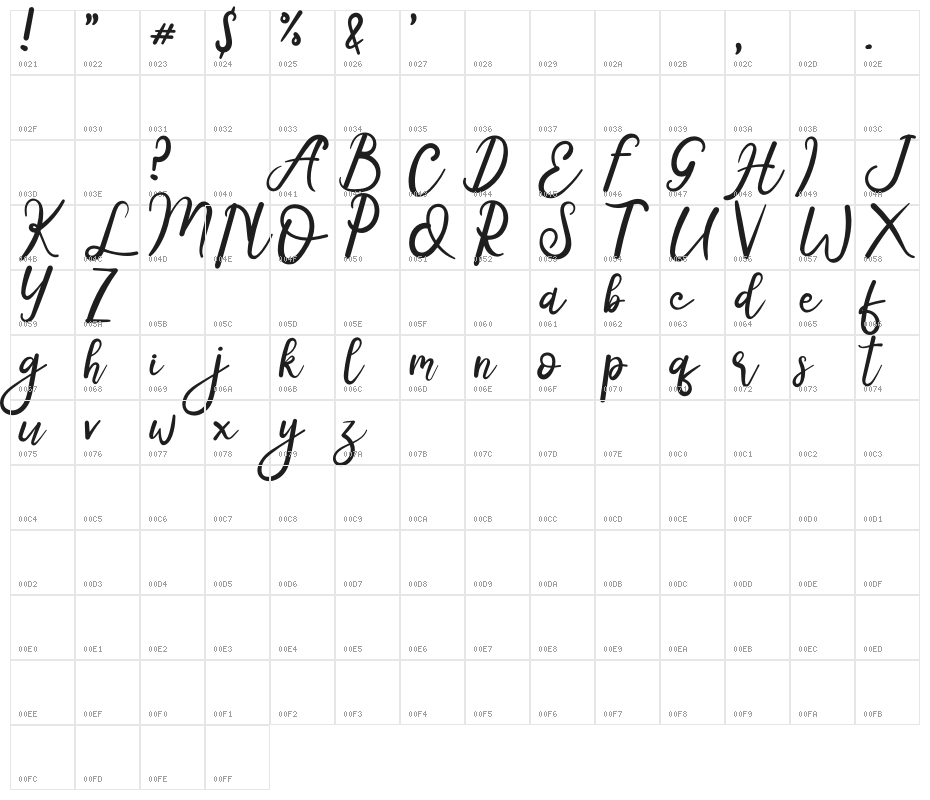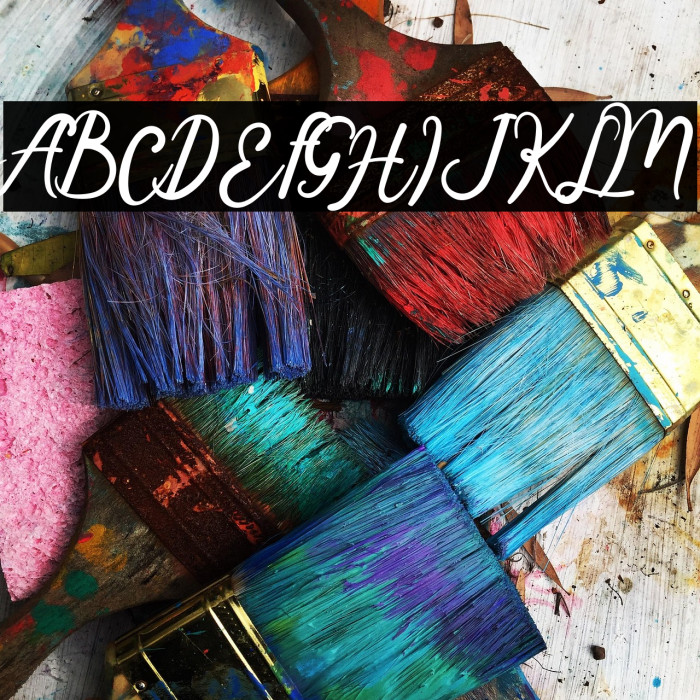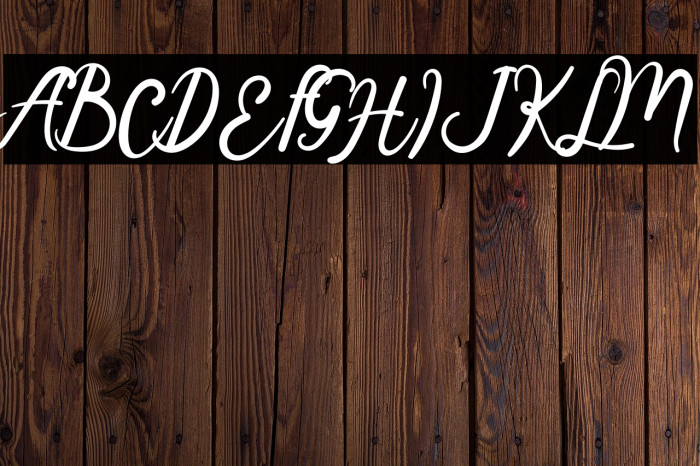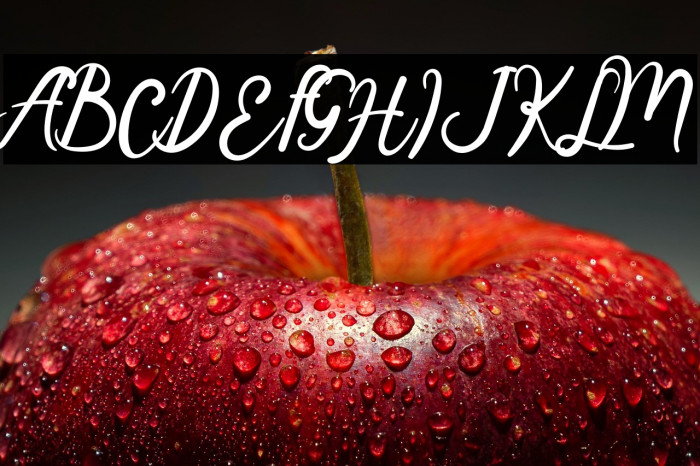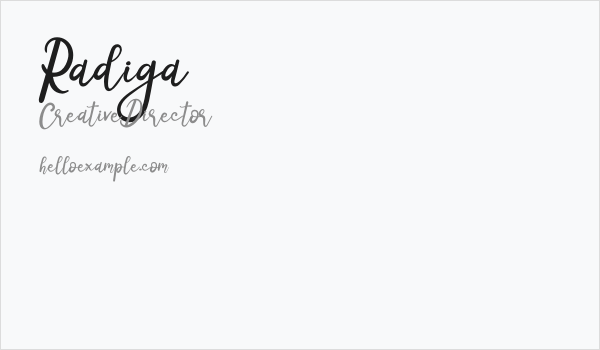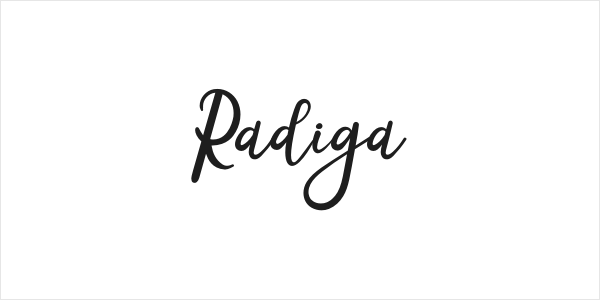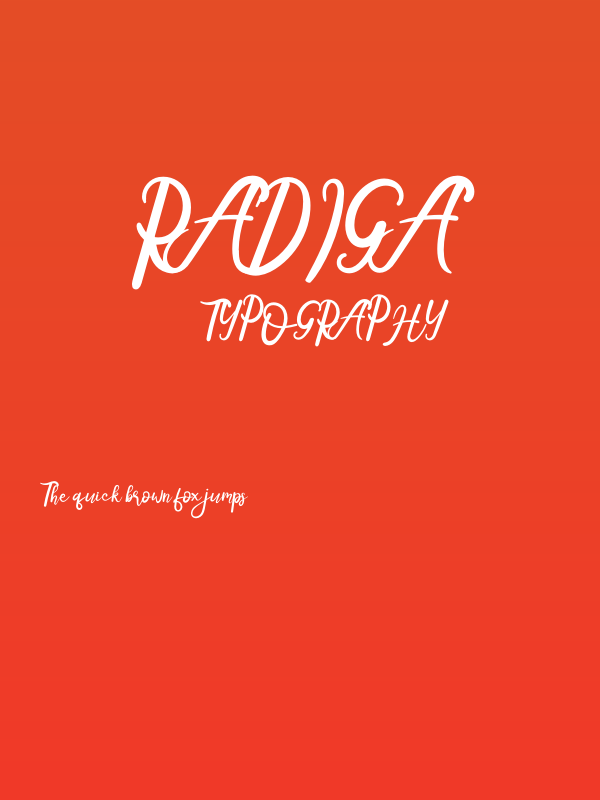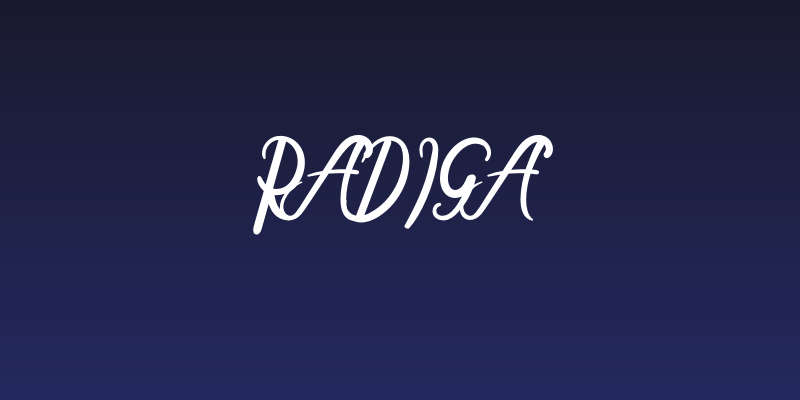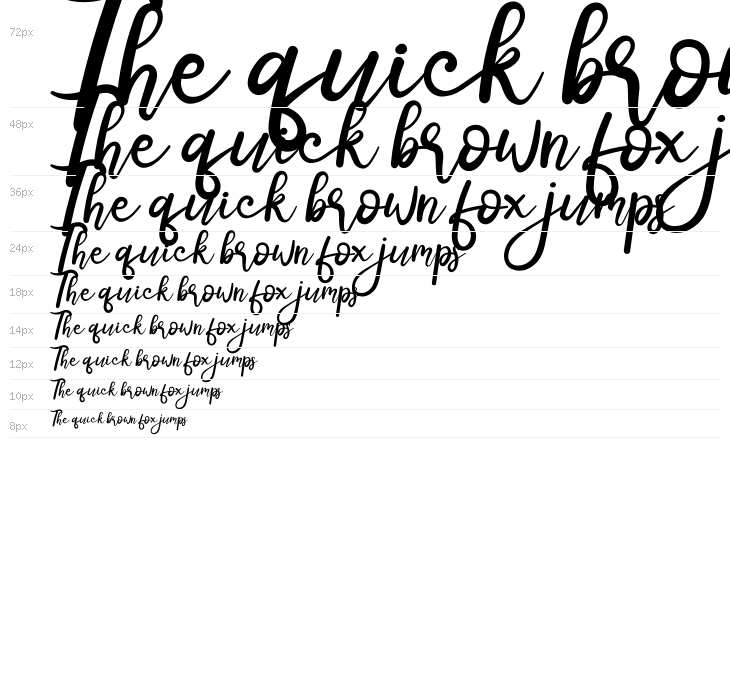
Radiga Font
Radiga Description
This font features a dynamic and flowing script style, characterized by its elegant, cursive letterforms. The uppercase letters exhibit a graceful, looping design, while the lowercase letters maintain a consistent fluidity, enhancing the overall aesthetic appeal. The strokes are smooth and connected, giving the text a handwritten feel. The special characters complement the alphabet with similar curves and swirls, maintaining the font's cohesive look. This font's artistic flair makes it suitable for creative and expressive design projects.
| Use Case | Logos, Invitations, Decorative text |
| Proposed Projects | Ideal for wedding invitations, greeting cards, branding, and logo design. |